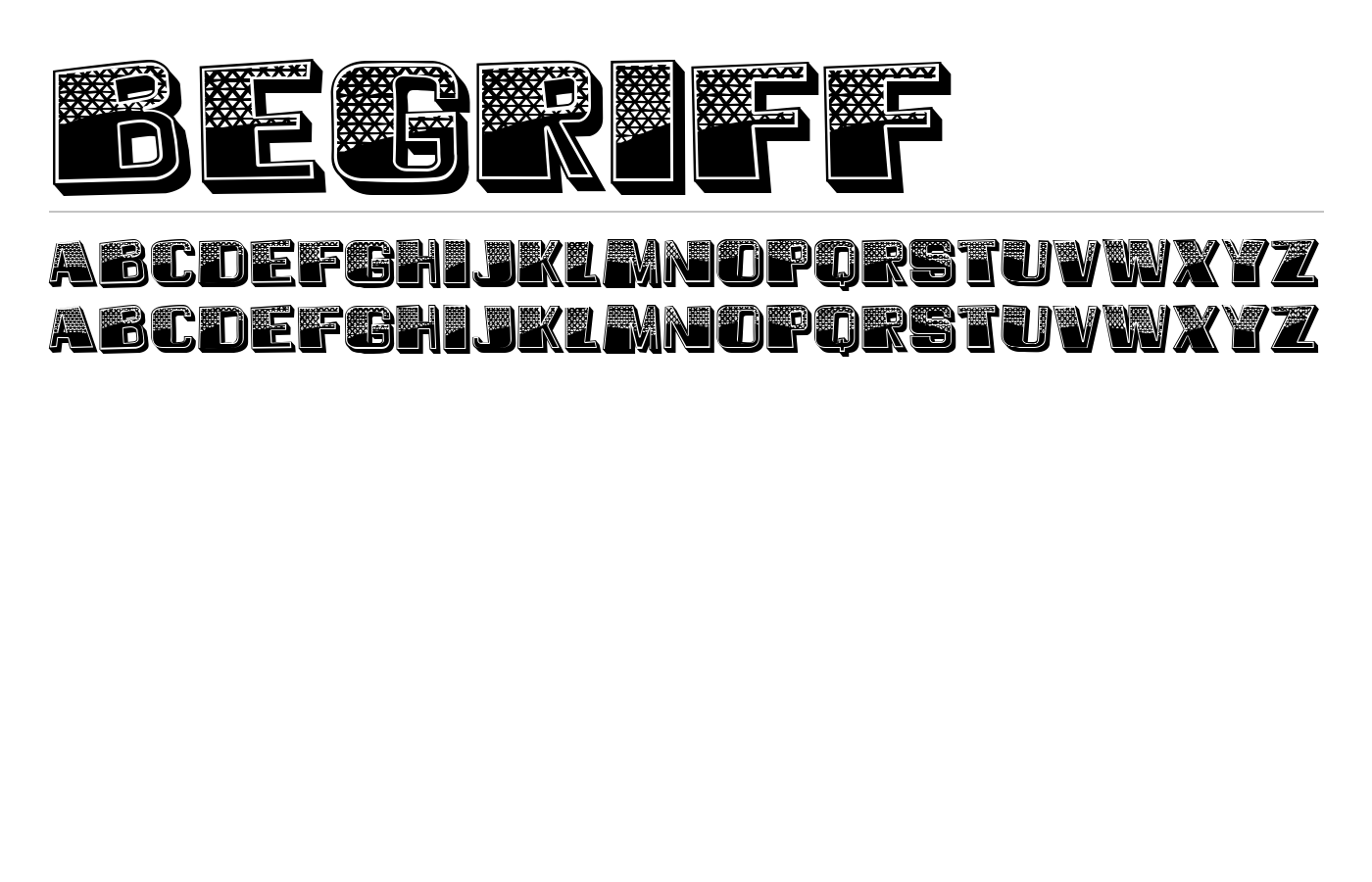
Begriff is a bold, decorative display font with a strong, blocky sans-serif design that features playful texturing and a 3D shadow effect, giving it a dynamic and eye-catching appearance. Its capital-only letterforms with varying patterned fills and solid shadows convey a fun, retro vibe perfect for headlines, posters, and branding that aims to stand out with a vintage yet energetic personality. This font works best in creative and informal contexts where impact and uniqueness are key.
Begriff Font
About Begriff Font
| Font family | Begriff Font |